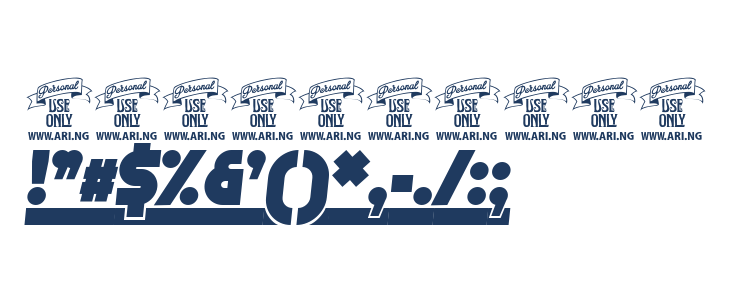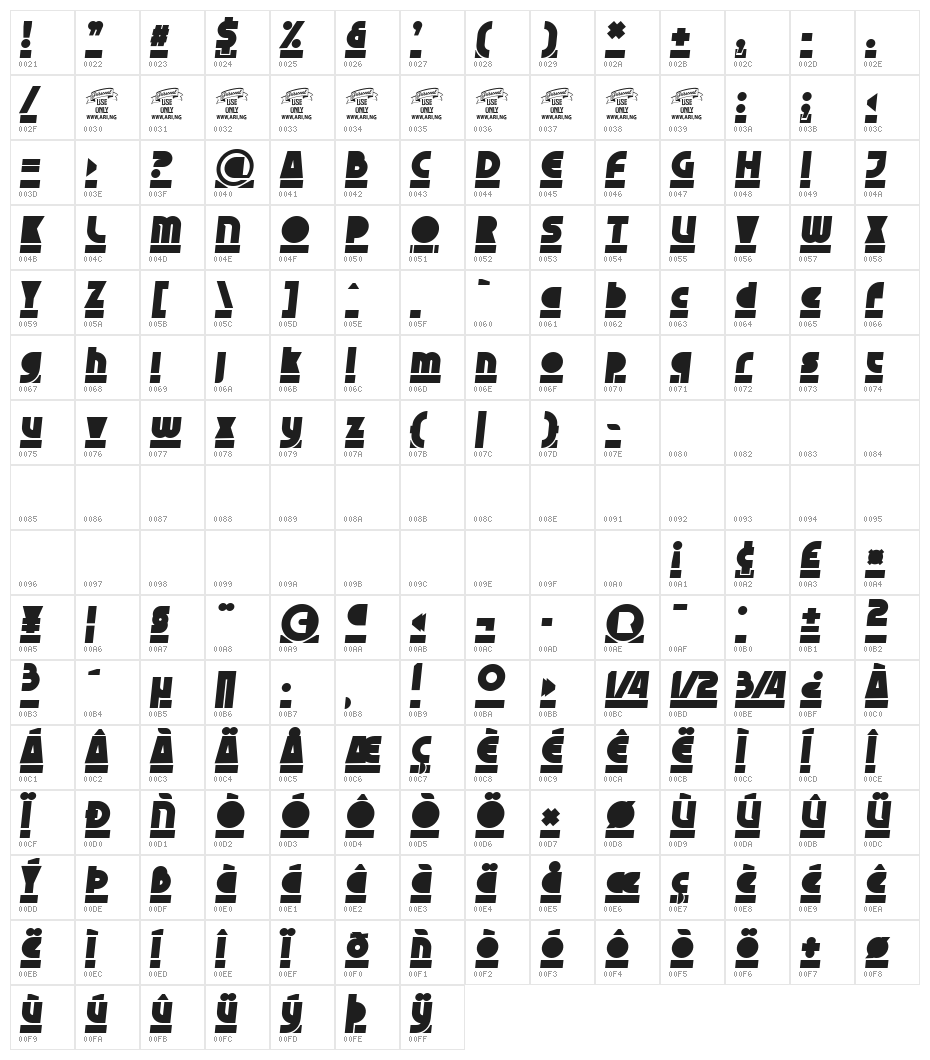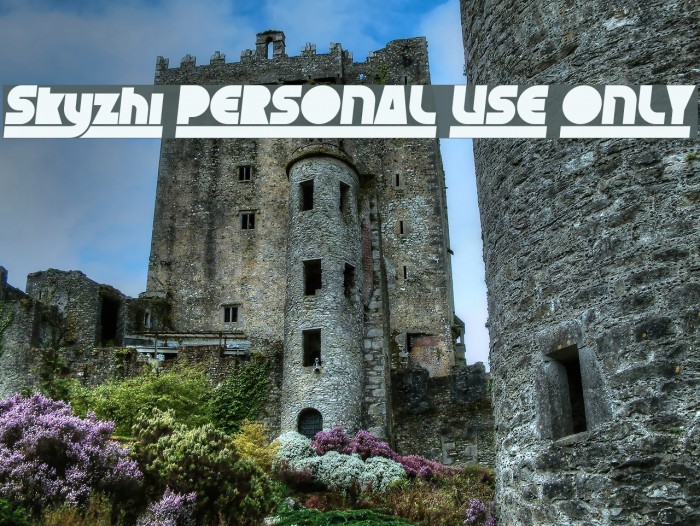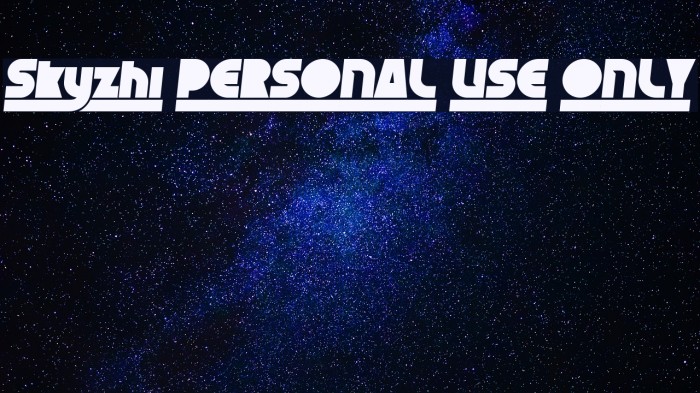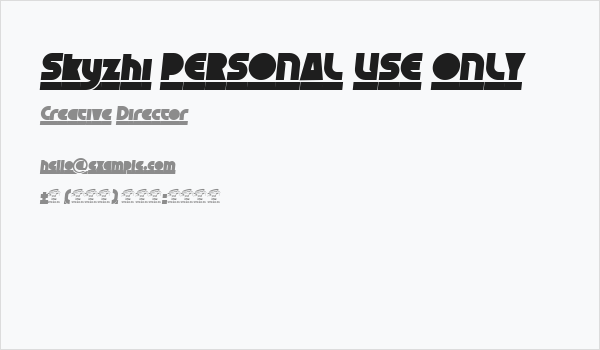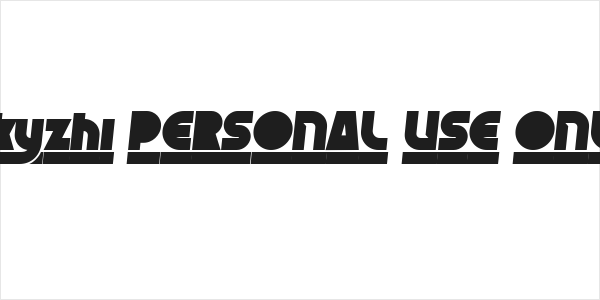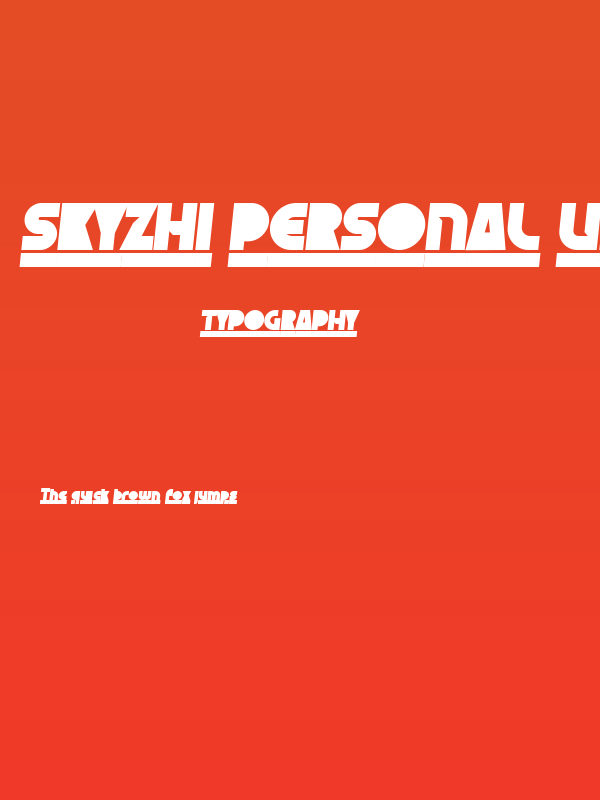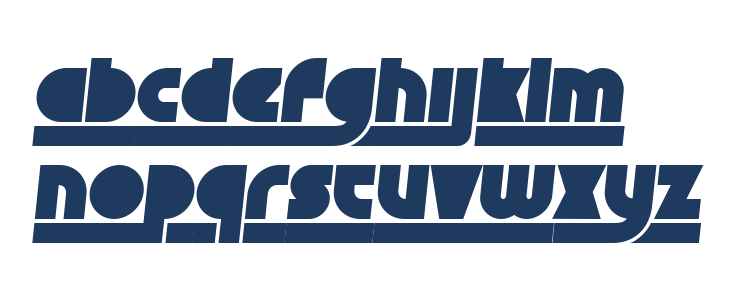
Skyzhi PERSONAL USE ONLY Font
Skyzhi PERSONAL USE ONLY Description
This font features a bold and modern design with a strong geometric influence. The characters are constructed with thick, solid strokes and sharp angles, giving them a futuristic and dynamic appearance. The uppercase and lowercase letters maintain a consistent style, with a slightly condensed form that enhances their boldness. The numbers and special characters follow the same design principles, ensuring uniformity across the font. The overall aesthetic is striking and impactful, making it suitable for attention-grabbing headlines or display purposes.
| Proposed Projects | Ideal for use in branding, posters, and digital media where a strong visual impact is desired. |